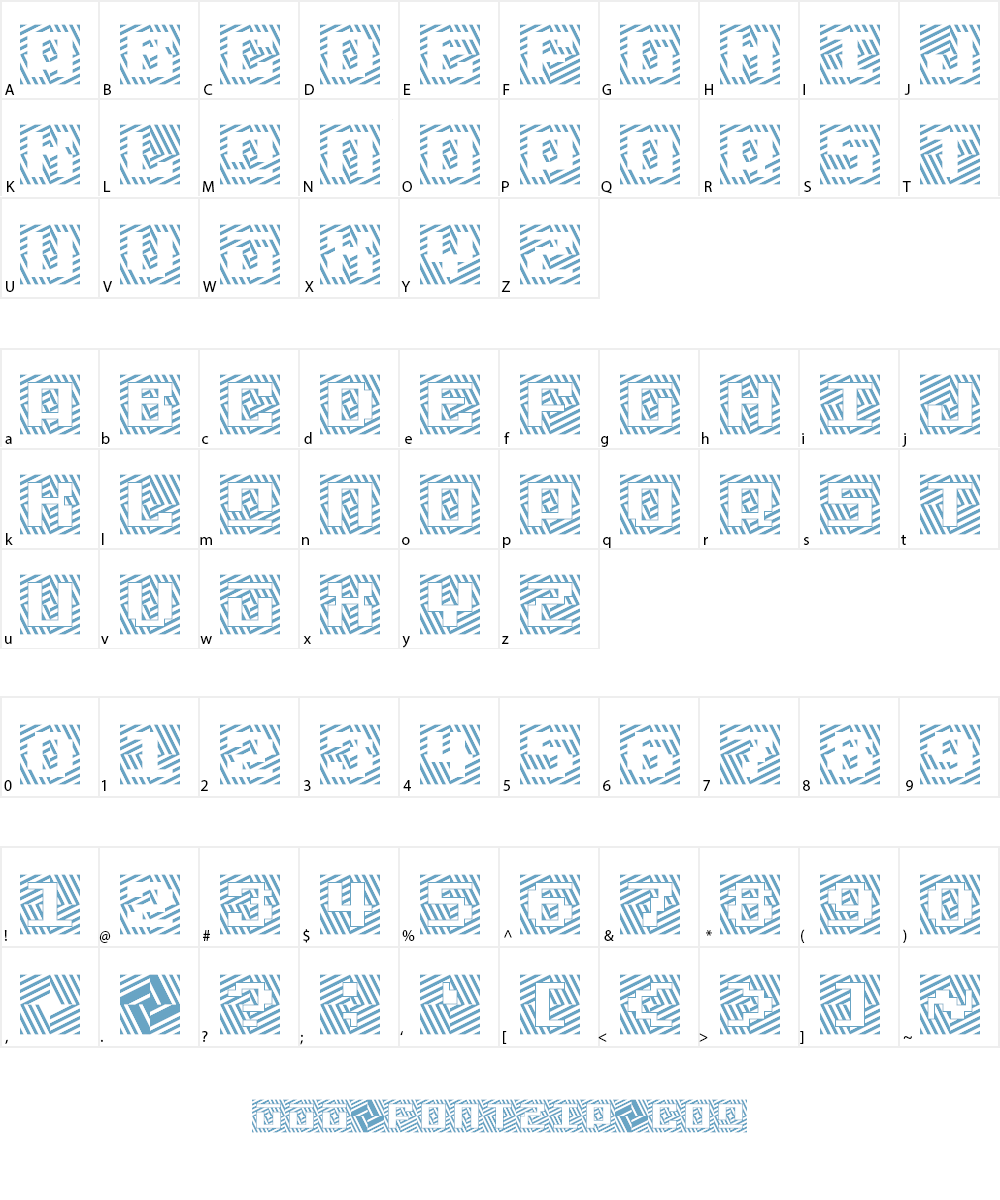
A harsh 2-in-1 effects font. Supports English only, though it is technically possible to write in a few other languages with the use of multiple rows per line of text.
Despite rendering onsite as a pixel font, this is in fact a high-resolution font made for large display. It will yield different visual effects at different font sizes, though.